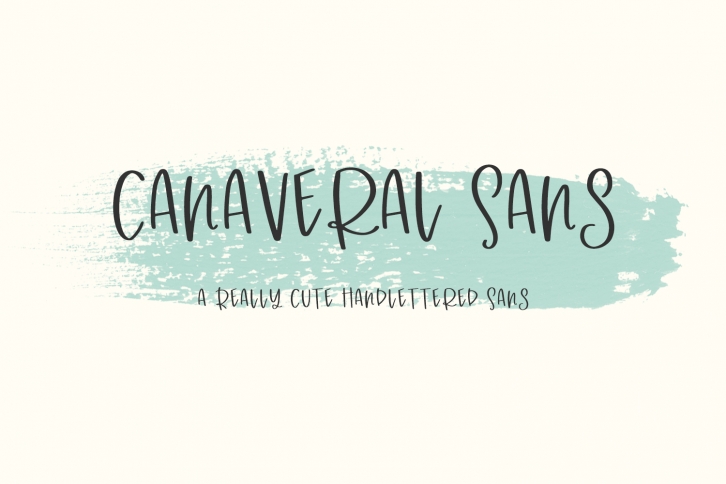
Canaveral Sans is a cute and casual lettered handwritten font that can be used for all chalkboard quotes or teaching material! Its authentic look will add a personal and realistic feel to your designs.